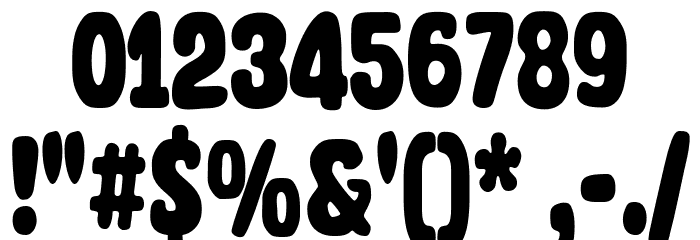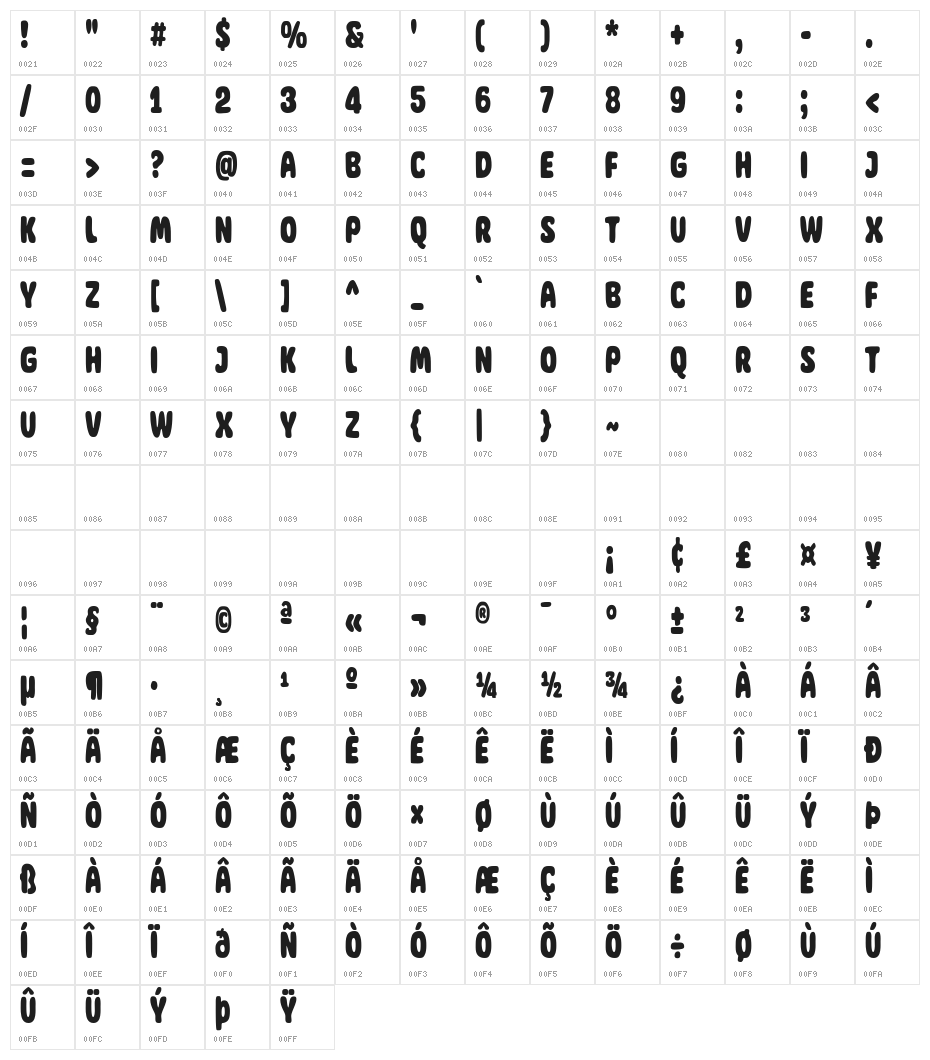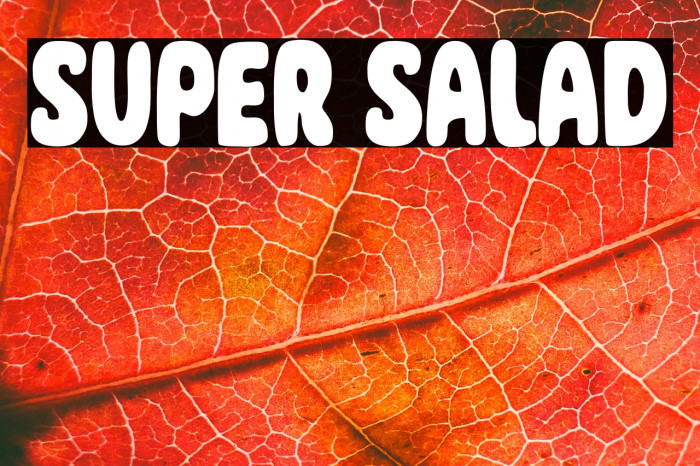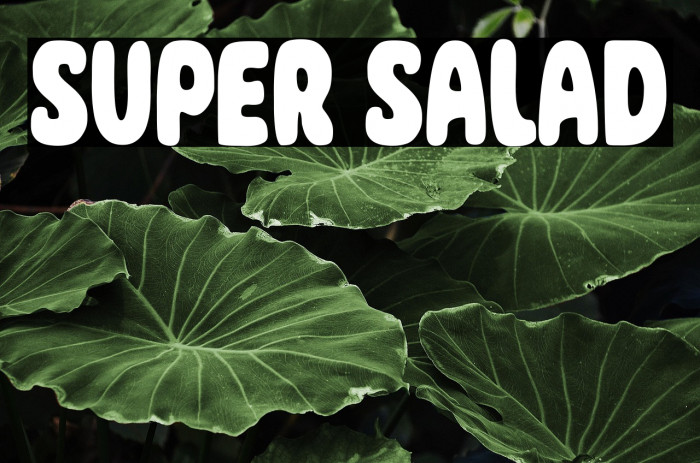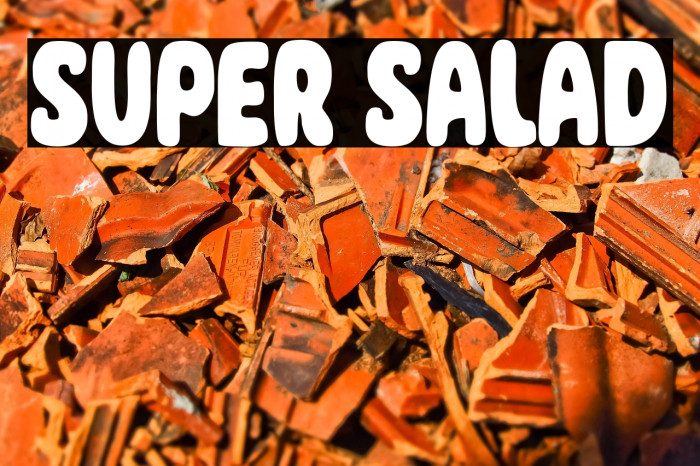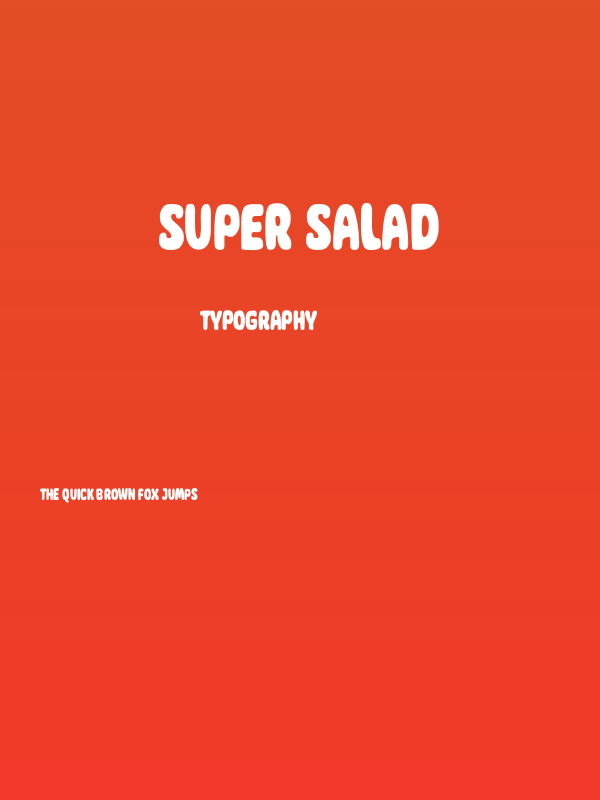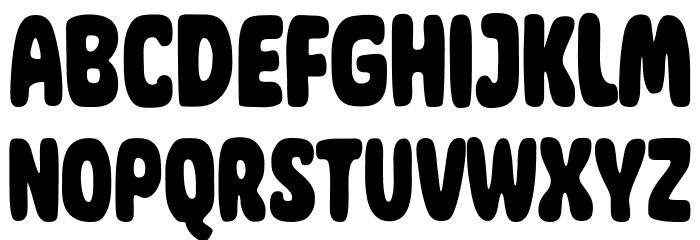
Super Salad Font
Super Salad Description
This font features a bold, rounded style with a playful and friendly appearance. The letters are thick and have a consistent weight throughout, giving them a strong presence. The rounded edges and curves add a softness that makes the font approachable and fun. It maintains a uniform height across all characters, ensuring readability and balance. The numbers and special characters are designed to match the playful aesthetic, making them suitable for a variety of creative applications. The overall look is modern and engaging, perfect for capturing attention.
Proposed ProjectsIdeal for children's books, playful branding, posters, and social media graphics.